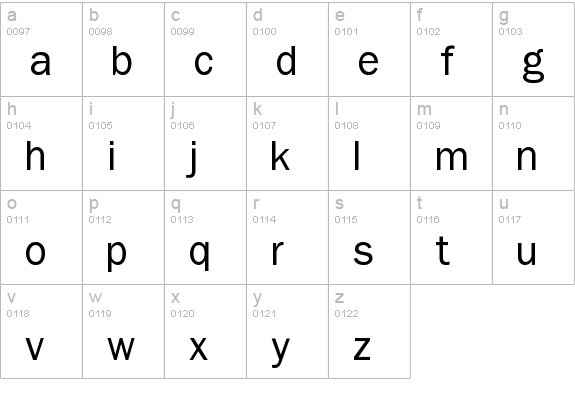
QTFrank Regular Font Details
QTFrank Regular is the standard, neutral variant in the QTFrank typeface family \xE2\x80\x94 well suited to general body text, paragraphs, and standard typographic work.
Introducing QTFrank Regular font - a versatile and modern typeface that effortlessly combines elegance with a touch of whimsy. This font is perfect for a wide range of design projects, from branding and advertising to invitations and social media graphics. QTFrank Regular boasts clean lines and a balanced letterform, making it highly legible and pleasing to the eye. Its carefully crafted curves and smooth strokes add a sense of sophistication and professionalism to any text. Whether you're creating a logo for a high-end fashion brand or designing a wedding invitation, QTFrank Regular is sure to make a statement. But what sets QTFrank Regular apart is that it is not only visually stunning, but it is also free. That's right, this exceptional font is freely available to download at FontsMarket.com. Now you can enhance your designs without breaking the bank. With QTFrank Regular, the possibilities are endless. Its versatility allows you to experiment with different styles, sizes, and colors, ensuring that your message stands out from the crowd. Whether you're aiming for a classic and timeless look or a more contemporary and bold aesthetic, QTFrank Regular has got you covered. So why wait? Download QTFrank Regular today and unlock a world of creative possibilities. Whether you're a professional designer or a hobbyist, this font will elevate your work and leave a lasting impression. Don't miss out on this opportunity to access a top-quality font for free. Get QTFrank Regular now, exclusively at FontsMarket.com.